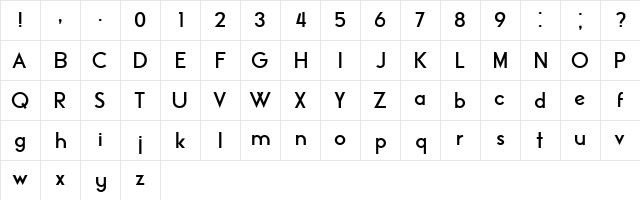
Official Book Regular
Design Context for Official Book Typeface
Official Book offers clean, dependable letterforms without strong stylistic allegiance, making it a practical choice for designers who need flexibility.